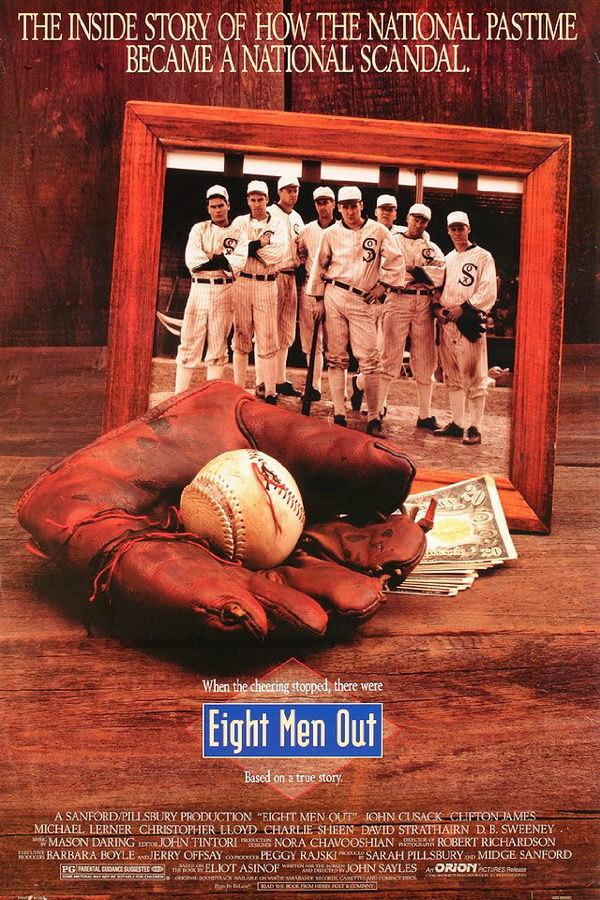
Fonts in UseEight Men Out is a 1988 sports drama film directed by John Sayles, portraying the infamous 1919 Chicago White Sox scandal in which several players conspired to throw the World Series.
The movie title in the poster is most likely set in Modula Sans Bold, a commercial font designed by Zuzana Licko in 1985. For more details about the font, you can find them here.